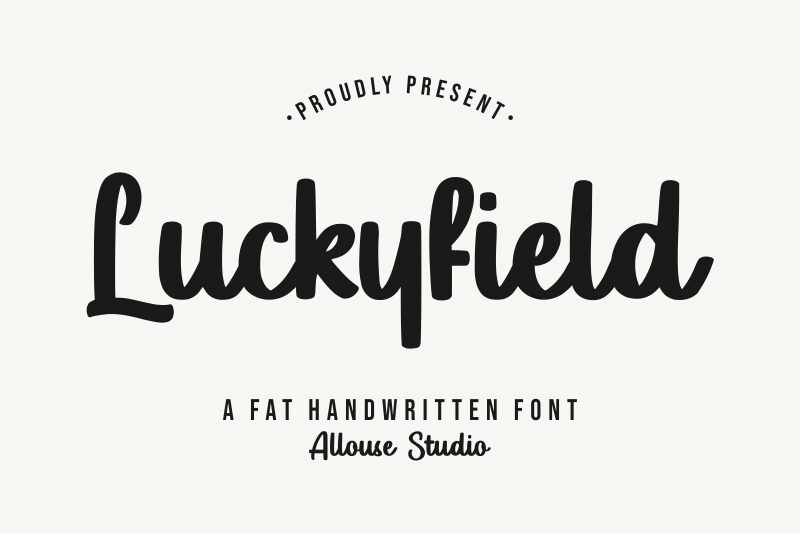
Luckyfield is a vintage handwritten font created by Allouse.Studio. With its stylish cursive look, this font will bring a classic yet modern touch to any project. Perfect for wedding invitations, posters, logos, greeting cards and more, Luckyfield adds an elegant twist to any design. The unique curved lines and loops of this font provide an ornamental flair that cannot be replicated with other typefaces. Bring your creative vision to life with Luckyfield!
Luckyfield